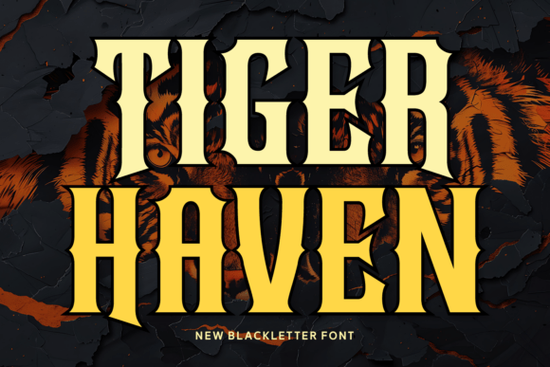
Tiger Haven Font is a standout choice for anyone looking to add a bold, eye-catching element to their design projects. This blackletter font combines the strength of historical typography with modern aesthetics, making it ideal for logos, merchandise, and headlines that need to make an impression. Whether you're a designer, crafter, print-on-demand seller, or small business owner, Tiger Haven offers a unique blend of style and functionality.
Designed with sharp angles and flowing curves, Tiger Haven brings a sense of drama and intensity to any text. Its gothic roots give it a strong visual presence, while its contemporary edge ensures it fits well in modern design contexts. The font is versatile enough to work in both digital and print formats, making it a valuable addition to your design toolkit.
What Makes Tiger Haven Stand Out?
Tiger Haven Font is more than just a stylish choice it’s a tool that can elevate your creative work. Its distinctive look makes it perfect for projects that need to stand out, whether you're designing a logo for a new brand or creating custom merchandise. The font's structure allows for clear readability while maintaining a strong visual identity.
If you're working on a project that requires a powerful statement, Tiger Haven provides the right balance of tradition and innovation. It’s especially effective when used in large sizes, where its dramatic features can shine. This makes it a popular choice for branding, packaging, and promotional materials.
How to Use Tiger Haven in Different Projects
For designers, Tiger Haven can be a great asset when creating visual identities. Its bold appearance works well for headlines, banners, and other attention-grabbing elements. For crafters and print-on-demand sellers, the font adds a professional touch to t-shirts, mugs, and other products. Small businesses can use it to create memorable logos that reflect their brand's personality.
When using Tiger Haven, consider the context of your design. It pairs well with clean, minimalist layouts that allow the font to take center stage. You can also experiment with different color combinations to highlight its unique characteristics. Keep in mind that while the font is highly readable, it may not be suitable for long blocks of text due to its decorative nature.
As you explore different fonts, keep in mind that each has its own unique strengths. Tiger Haven is particularly well-suited for projects that require a strong visual impact. It’s a reliable choice when you want to convey energy, authority, or creativity through your text.
Final Thoughts on Using Tiger Haven
Tiger Haven Font is a versatile and impactful typeface that can enhance a wide range of design projects. Its combination of historical influence and modern design makes it a standout option for anyone looking to create something memorable. Whether you're working on a logo, a product label, or a headline, this font offers the right balance of style and clarity.
Before finalizing your design, take some time to test the font in different contexts. This will help you understand how it performs in various sizes and backgrounds. By doing so, you can ensure that it meets your creative goals and delivers the desired effect.
Consider adding Tiger Haven to your collection of fonts if you're looking for a bold and expressive typeface. It’s a practical choice that can bring a fresh perspective to your work, helping you create designs that capture attention and convey your message effectively.